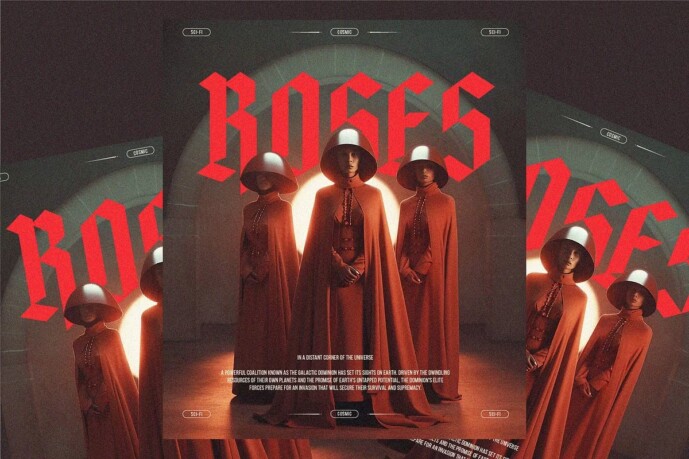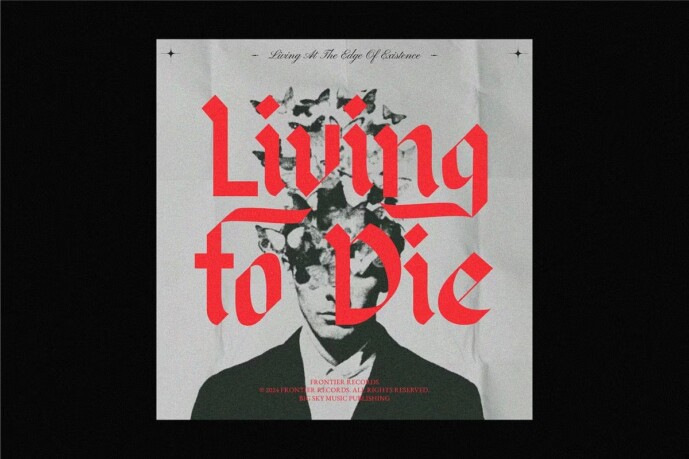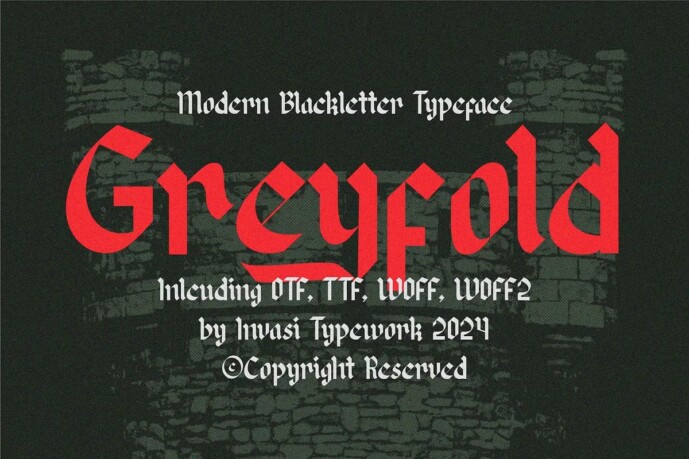
Greyfold Font
Greyfold Font. Inspired by the gothic allure of fraktur, this blackletter font carries centuries of history, yet is reborn with a contemporary edge. Each curve and swash is crafted to echo the elegance of the past while carving a path toward the future of design.
Greyfold tells a story in every letter. Its bold strokes command attention, while its refined alternates offer versatility and sophistication. Perfectly balanced between form and function, it effortlessly transforms headlines into statements, logos into timeless icons, and branding into a work of art. More than just a font, Greyfold breathes life into every project it touches, elevating ordinary designs into something extraordinary.